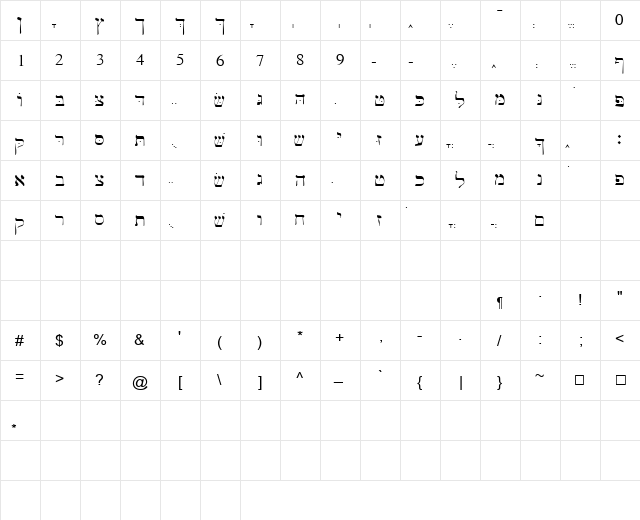
Bwhebl Regular
Design Context for Bwhebl Typeface
Bwhebl takes a measured approach to typography — its balanced proportions and neutral character make it a reliable workhorse for both digital and print work.